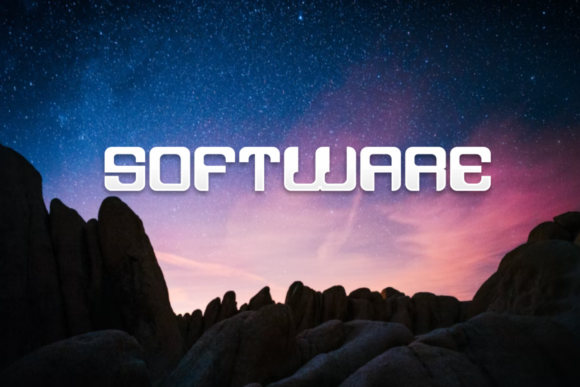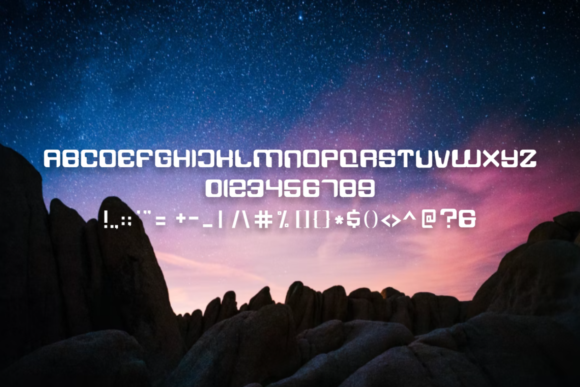
Introduction to Necropos Font
Imagine you’re brainstorming ideas for a new branding project, and suddenly, the perfect font pops into your mind. For designers, this moment is a thrill – a spark that ignites creativity and propels the project forward. But what happens when that perfect font is elusive, and you’re left with a blank slate? Enter the Necropos Font – a modern, bold, and authentic display font that’s about to become your new go-to design resource.
As a versatile font, Necropos Font is perfect for a wide range of creative projects, from logo designs to t-shirt printing, export, and more. Its high-quality design ensures it looks outstanding in various contexts, making it a valuable addition to any designer’s toolkit. And the best part? You can download it for free, with a transparent background, ready to elevate your next project to the next level.
Key Features of Necropos Font
- Unique, gothic-inspired font with a transparent background, perfect for adding a touch of darkness to your designs
- Perfect for creating a spooky or mysterious atmosphere in your designs, from posters to invitations and more
Honest Review: Necropos Font
I recently had the chance to work with the Necropos Font, and I must say it’s been a game-changer for my creative projects. The first thing that caught my attention was the high-quality design, which is perfect for any design resource.
- ✨ The font is incredibly versatile, making it suitable for a wide range of creative projects.
- ✨ The transparent background is a great feature, allowing me to easily integrate it with other design elements.
However, I did encounter a few limitations while working with the Necropos Font. For example, ⚠️ it may not be suitable for projects that require a lot of bold or italic text, as the font can become difficult to read at larger sizes.
Overall, I’m impressed with the Necropos Font, and I would highly recommend it to designers looking for a high-quality, versatile font for their creative projects. The free download option makes it a great addition to any design resource collection.
Necropos Font
The Necropos Font is a unique and versatile design resource that can elevate your creative project. With its high-quality, free download, and transparent background, this font is perfect for designers and artists looking to add a touch of elegance to their work.
Tips for Getting the Most Out of Necropos Font
For the best results, use the Necropos Font in conjunction with a high-contrast background to make the font stand out. You can also experiment with different font sizes and styles to create a unique look.
Common Use Cases for Necropos Font
The Necropos Font is perfect for use in creative projects such as logos, brochures, and business cards. It is also great for use in digital designs such as social media graphics and website headers.